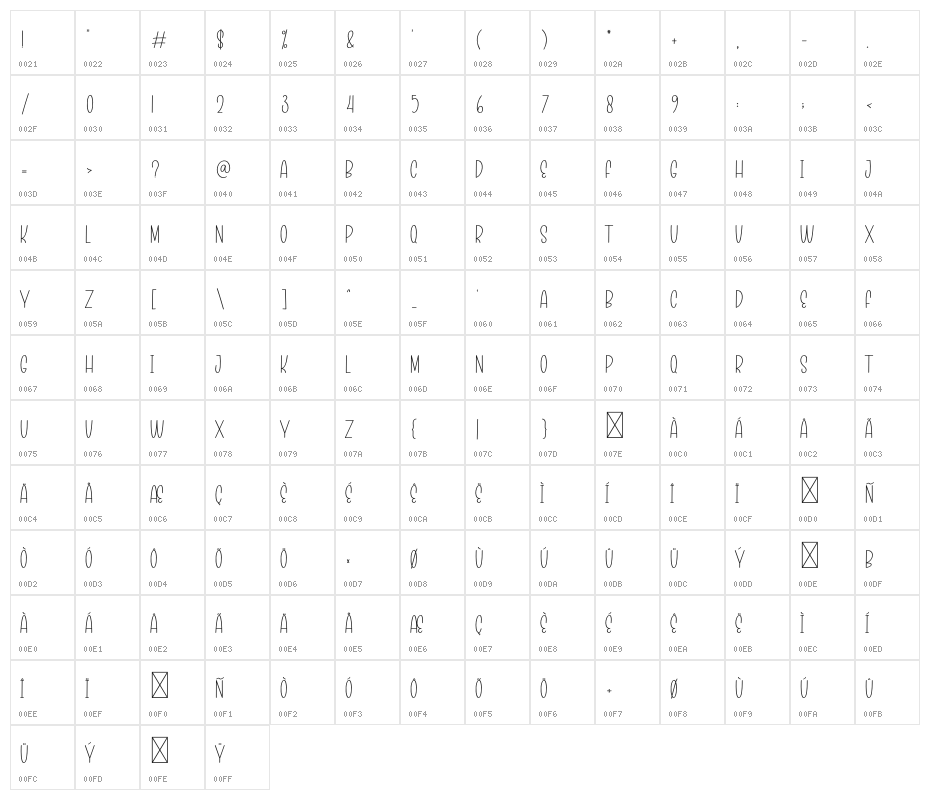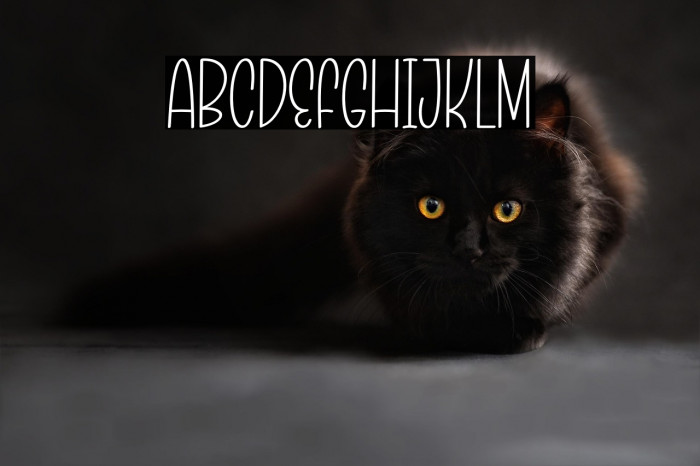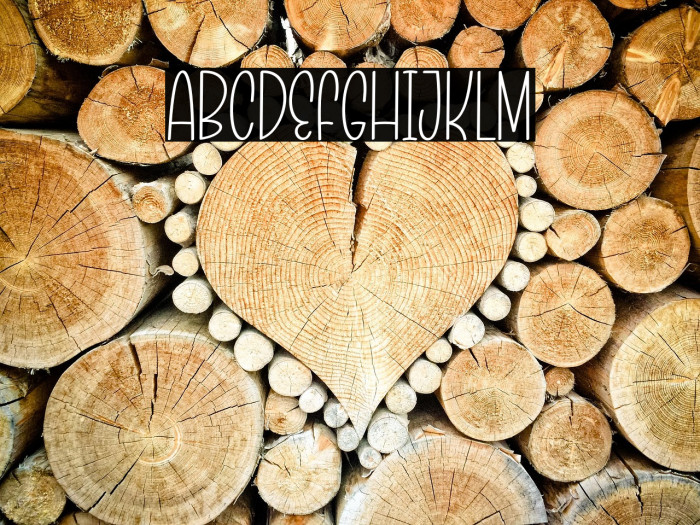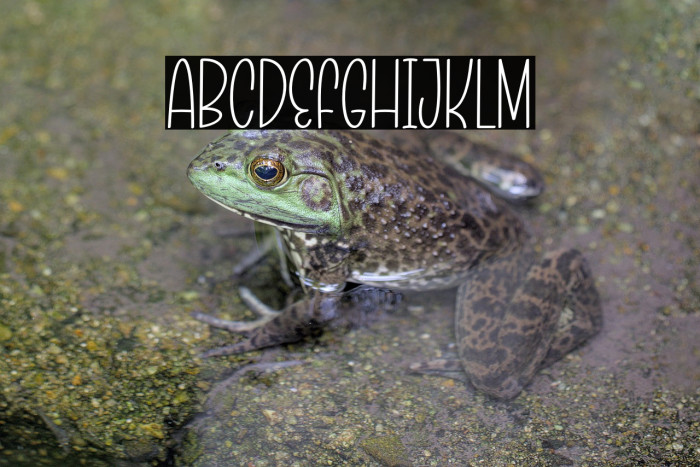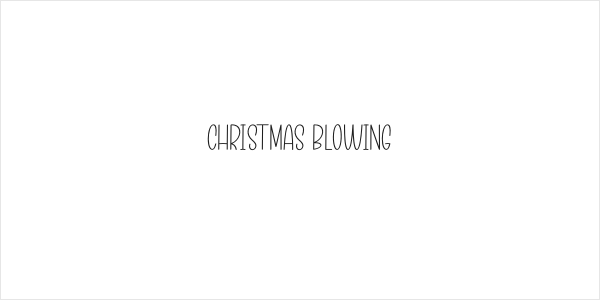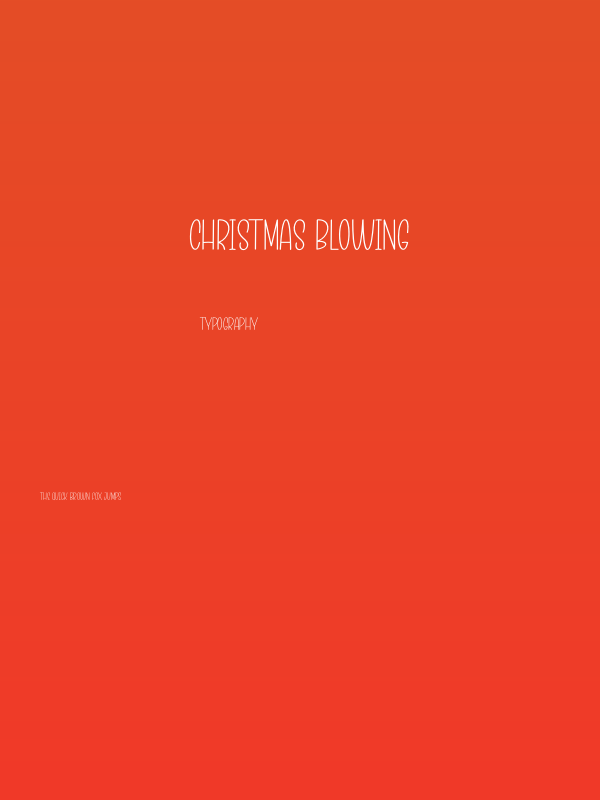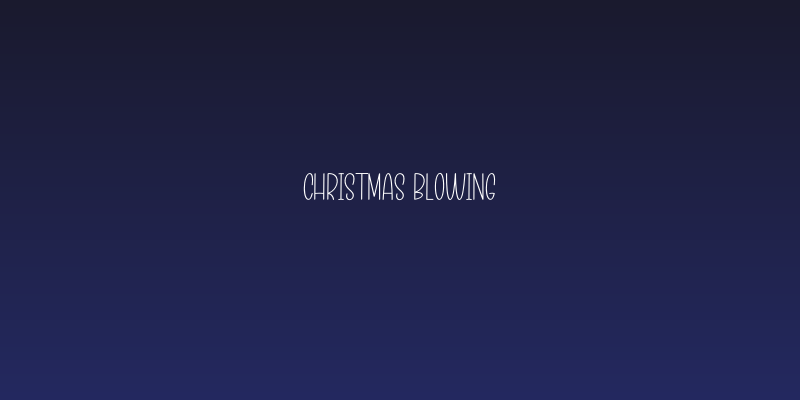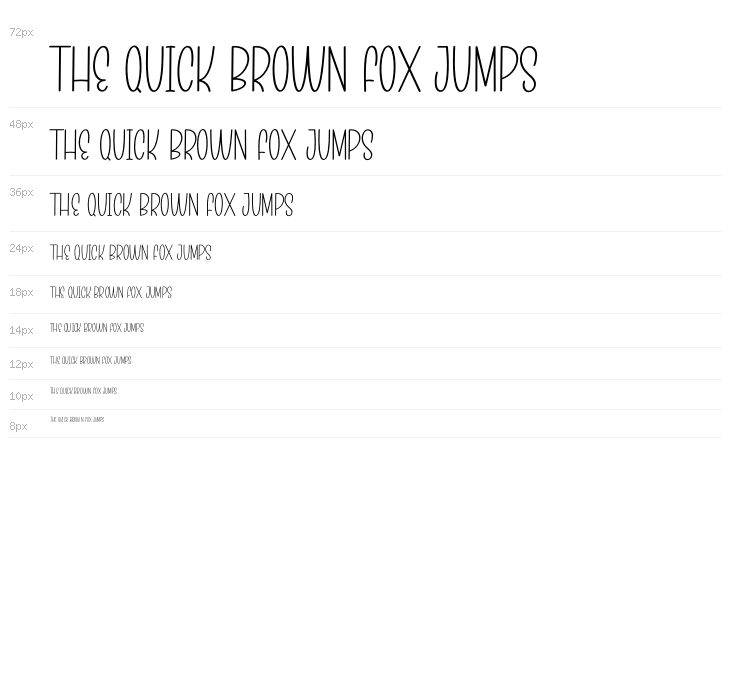
Christmas Blowing Font
Christmas Blowing Description
A playful, handwritten font with tall, narrow characters and a whimsical style.
| Use Case | Headlines, Invitations, Greeting cards |
| Proposed Projects | Greeting cards, invitations, playful branding. |